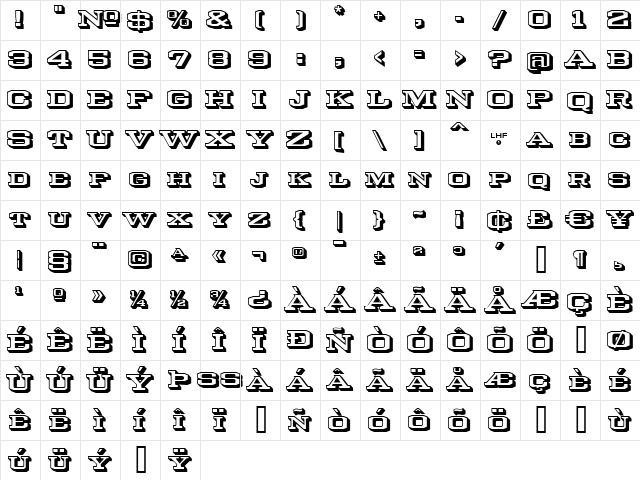
LHF Burbank Shadow Roman
Design Context for LHF Burbank Shadow Typeface
LHF Burbank Shadow is built around its visual character rather than neutral utility — its distinctive forms are designed to make an impression at display sizes.
Font Pairing: Pair with a clean neutral sans-serif for body copy to let LHF Burbank Shadow's character lead without overwhelming the composition.
Pro Tip: Treat LHF Burbank Shadow as the centrepiece of your typographic hierarchy. One strong heading set in a decorative face can carry an entire layout.